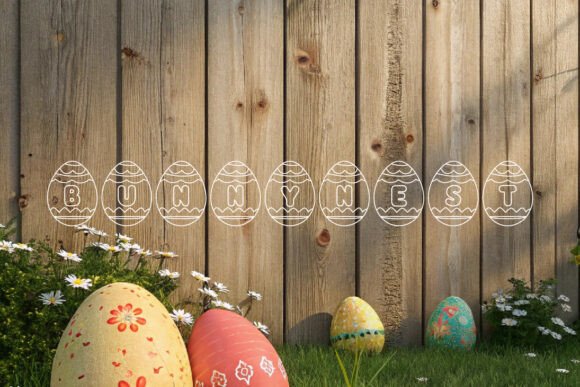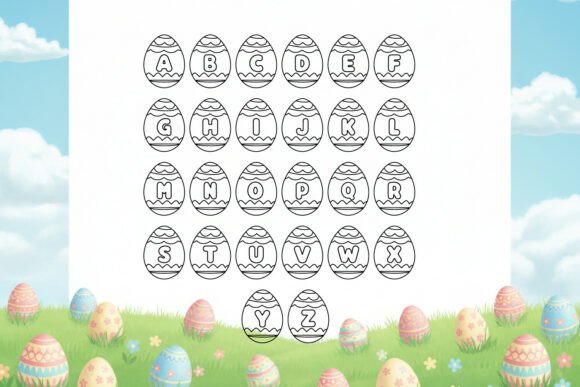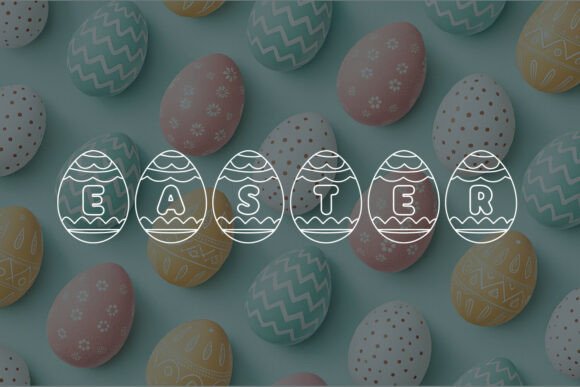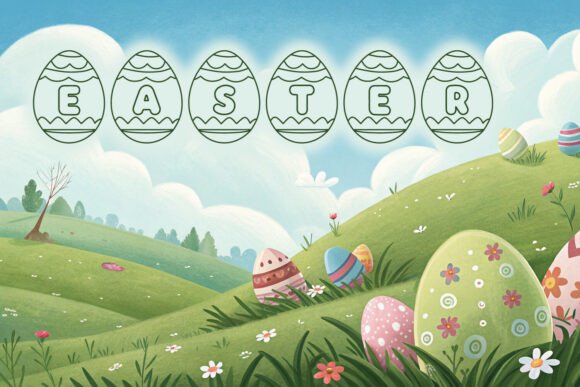
Unleash Your Springtime Creativity with Bunnynest Font
Do you remember the feeling of rummaging through your grandmother’s craft stash, uncovering hidden treasures and sparkly trinkets? As a creative, you’re always on the lookout for unique and charming elements to elevate your projects. This spring, get ready to fall in love with the BunnyNest Font – a delightful Easter egg monogram alphabet that’s perfect for adding a touch of whimsy to your designs.
Bunnynest Font is a decorative alphabet featuring outlined egg frames with uppercase letters inside, making it a must-have for any spring-themed project. Whether you’re creating nursery designs, sublimation art, or DIY monogram creations, this font is sure to bring a smile to your face. As a designer, you’ll appreciate the versatility and charm of Bunnynest Font, which can be used in a variety of applications, from greeting cards to T-shirts.
Bunnynest Font Key Features
- Unique Characteristic: Bunnynest Font features a unique, hand-drawn style with a whimsical feel, making it perfect for creative and playful designs.
Bunnynest Font Review
I’ve been using the Bunnynest Font for a few projects now, and overall, I’m quite impressed. Here are some things that really stand out: ✨
- Whimsical charm: This font has a unique, hand-drawn feel that’s perfect for projects that need a touch of playfulness.
- High legibility: Despite its quirky appearance, the Bunnynest Font is surprisingly easy to read, even at smaller font sizes.
- Wide character set: The font includes a wide range of characters, including numbers, punctuation, and international symbols.
- Limited scalability: While the font looks great at smaller sizes, it can become blurry and lose its charm when scaled up to larger sizes.
- Not ideal for body text: Due to its playful nature, the Bunnynest Font is better suited for headlines and titles rather than body text.
Overall, I think the Bunnynest Font is a great addition to any designer’s toolkit. It’s perfect for projects that need a touch of whimsy and personality, but it’s not a good fit for every project. With some careful planning and use, I think this font can really help bring a design to life.
Tips for Getting the Most Out of Bunnynest Font
Here are some tips for getting the most out of Bunnynest Font:
- Use the font in combination with other playful fonts to create a whimsical design.
- Experiment with different font sizes and colors to add visual interest.
- Use the font for headings and titles to add a touch of whimsy.
Bunnynest Font is commonly used for:
- Children’s book covers and
Alternative Font Options for Bunnynest Font
Great Vibes Font is a beautiful, modern script font that is perfect for adding a touch of elegance and sophistication to your designs. It’s ideal for use in invitations, branding, and other materials where a handwritten feel is desired.
Compared to Bunnynest Font, Great Vibes Font has a more refined and polished look, making it suitable for a wider range of applications. While Bunnynest Font is more playful and whimsical, Great Vibes Font is more versatile and can be used in both formal and informal contexts.
Alex Brush Font is a elegant, handwritten script font that is perfect for use in high-end branding, packaging, and advertising materials. It’s ideal for designers who want to add a touch of sophistication and refinement to their work.